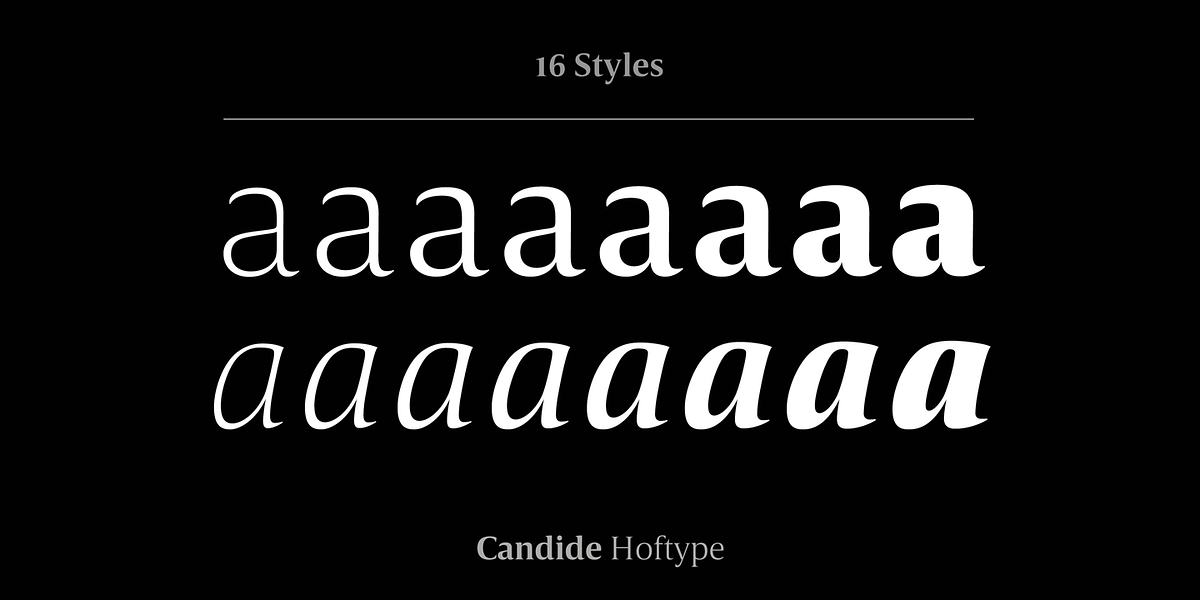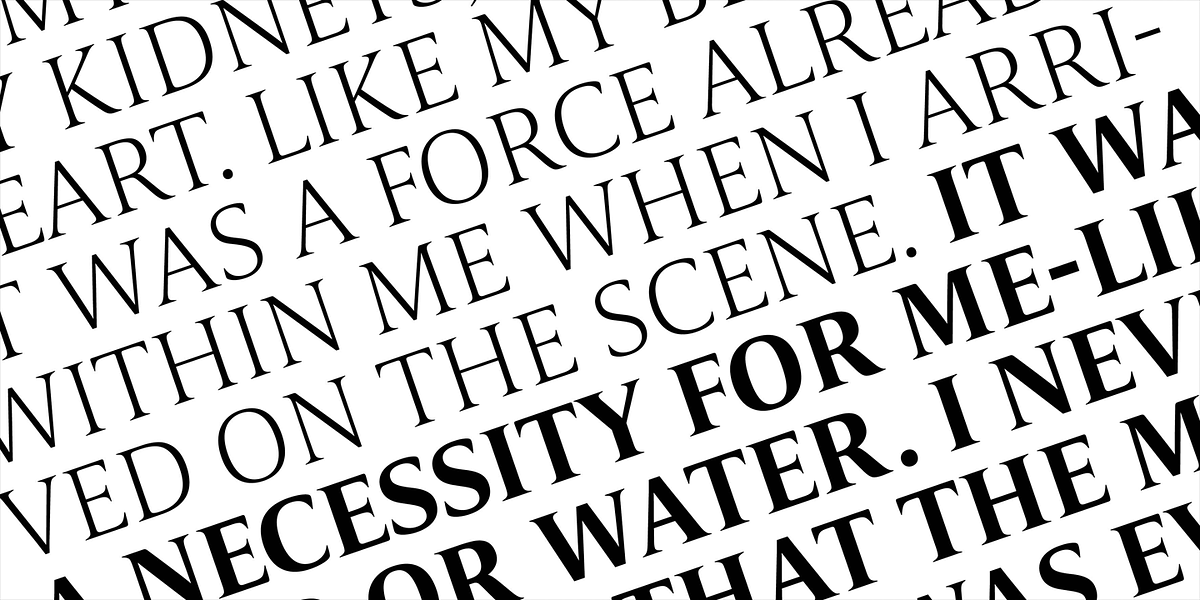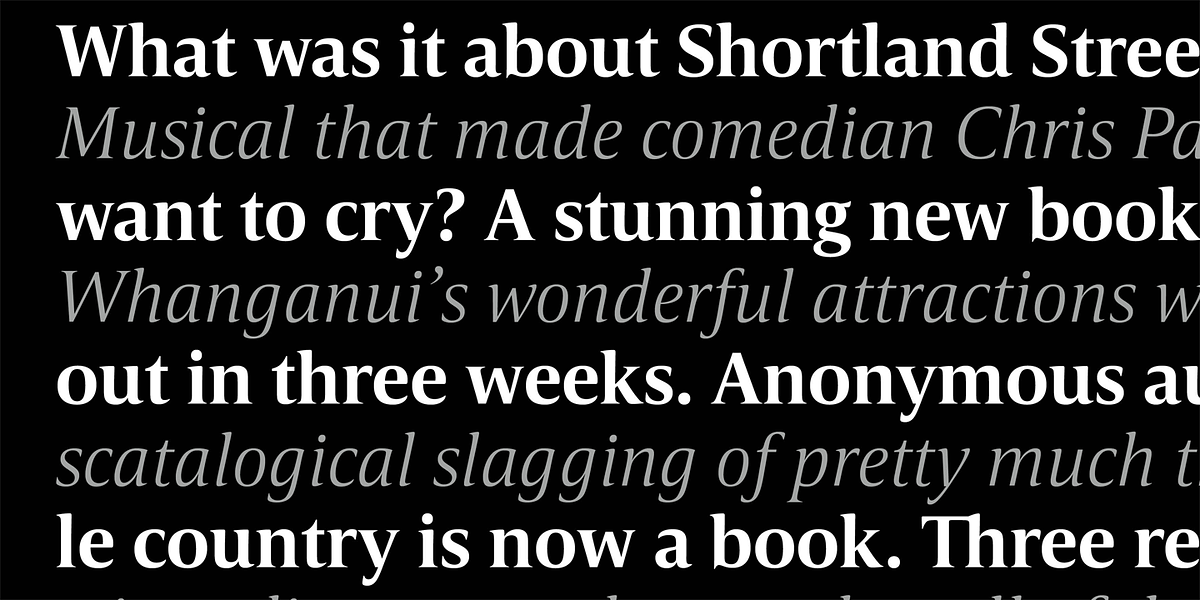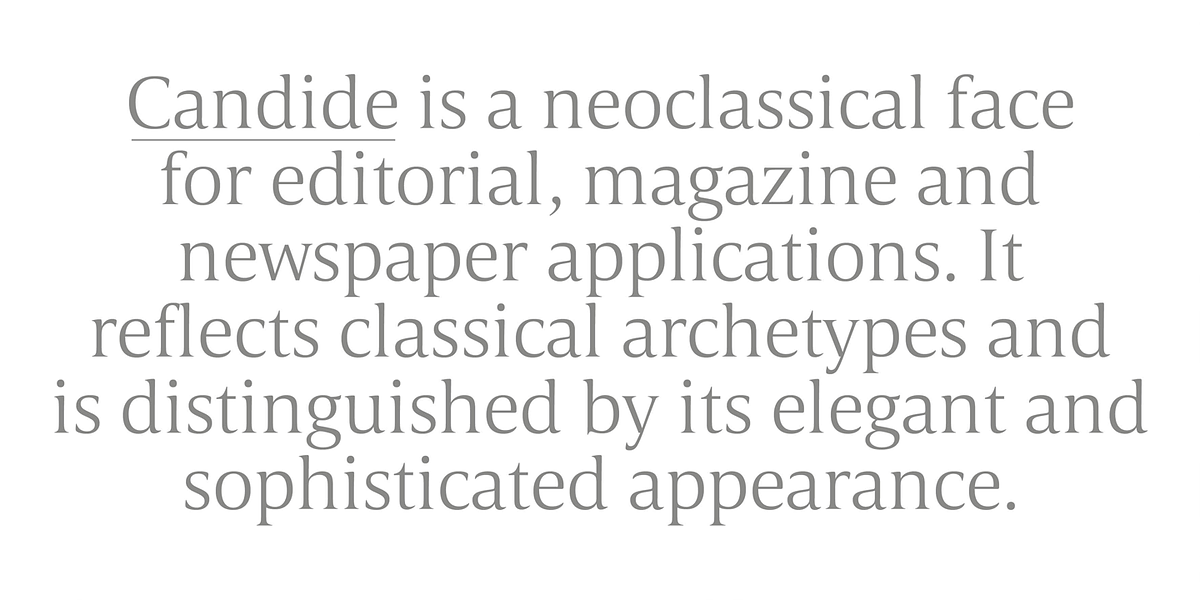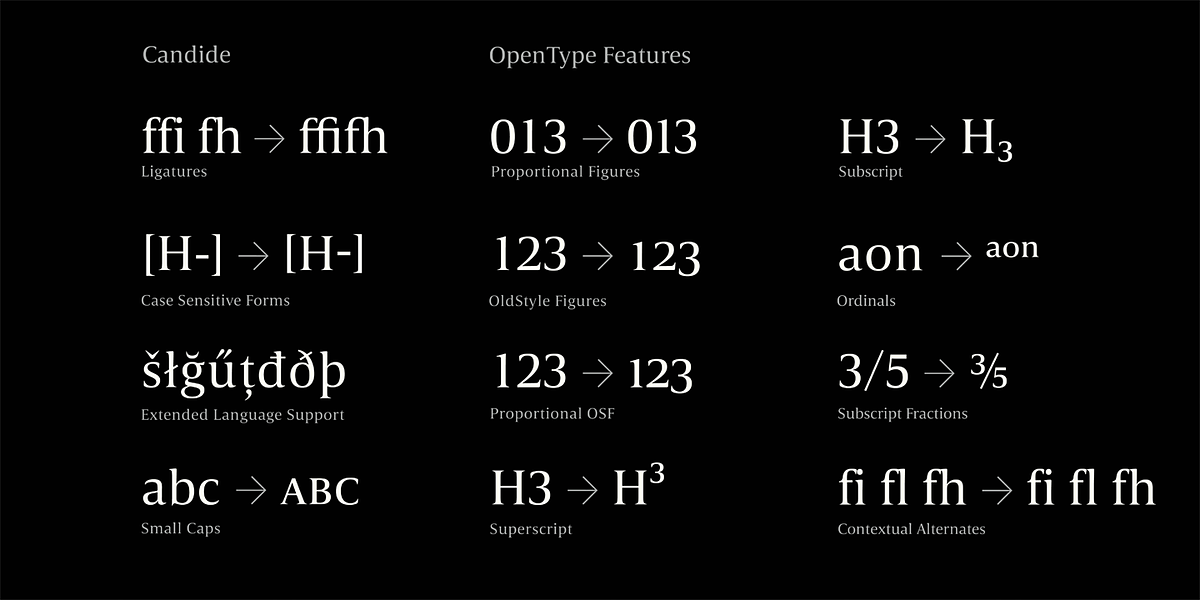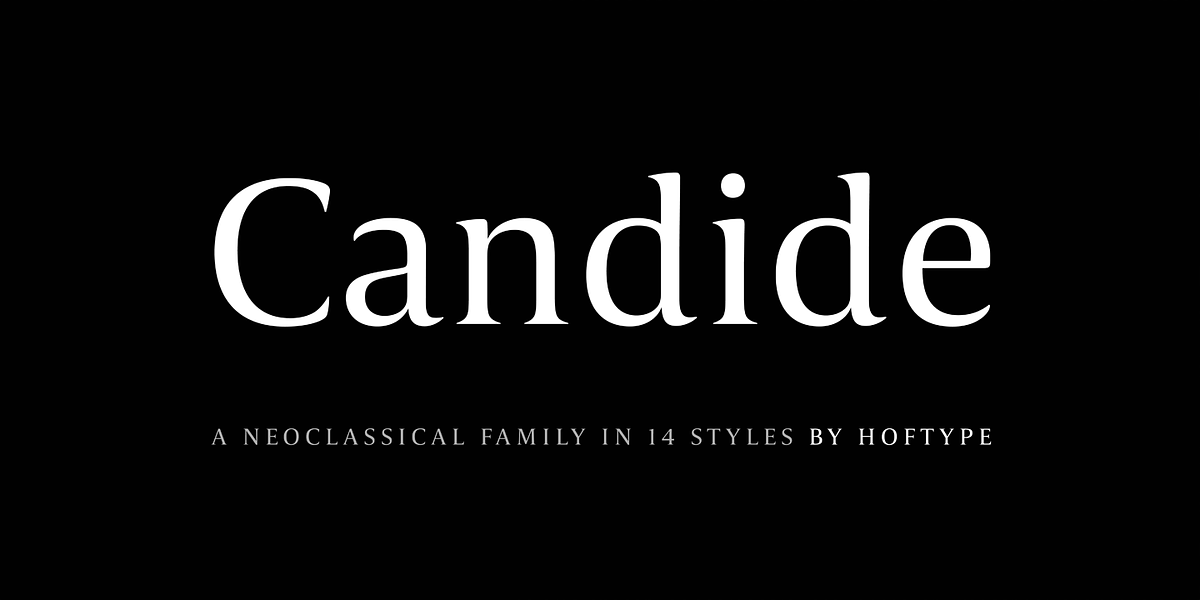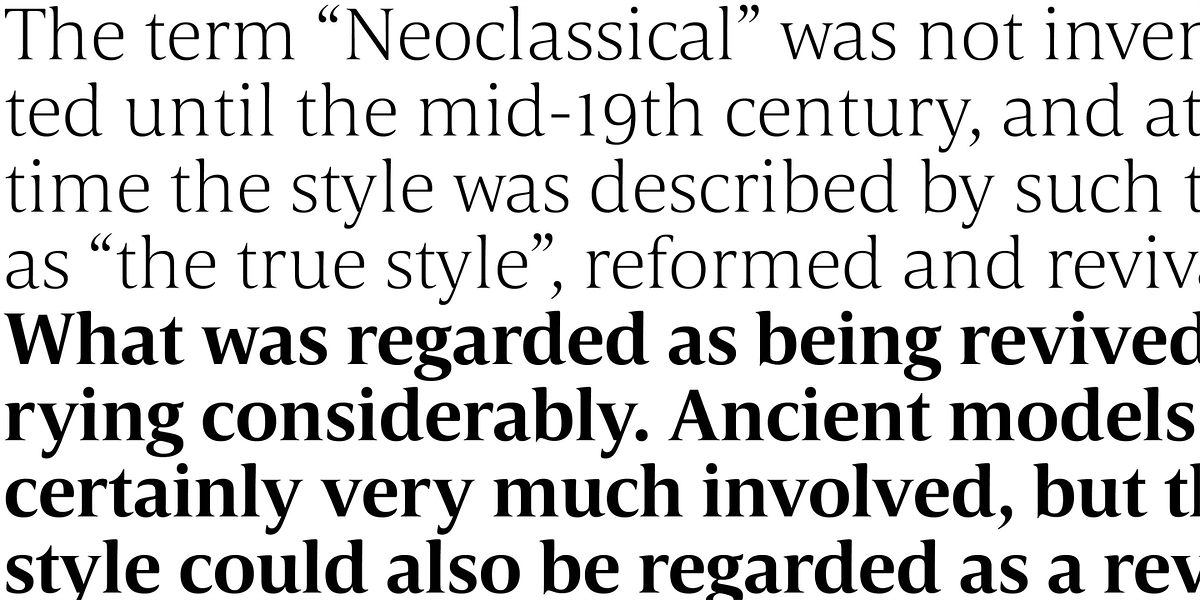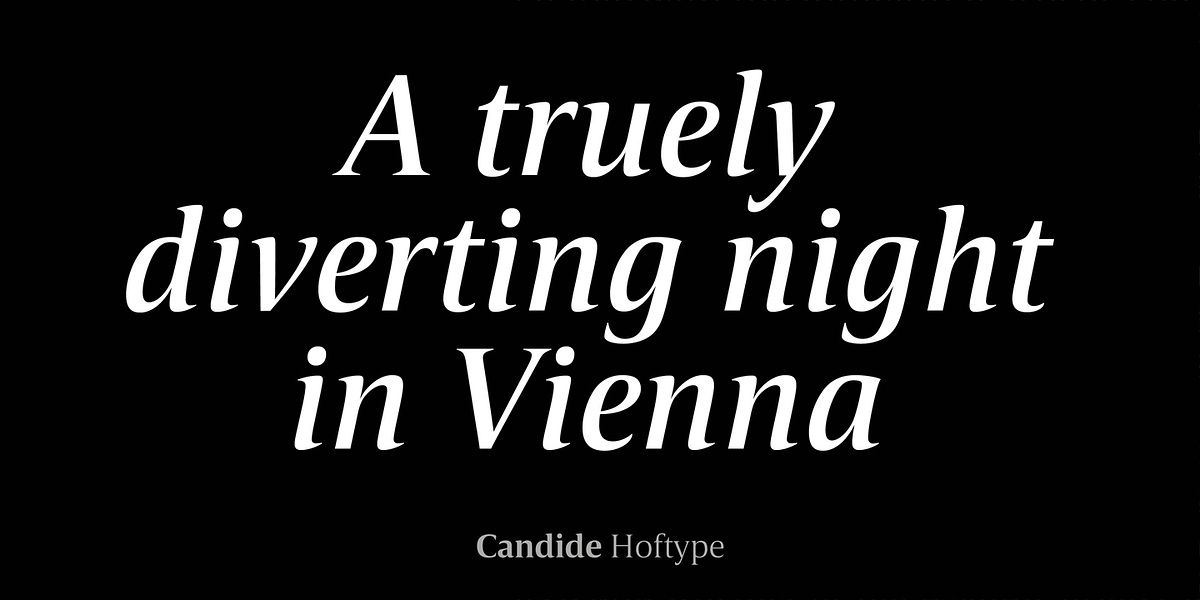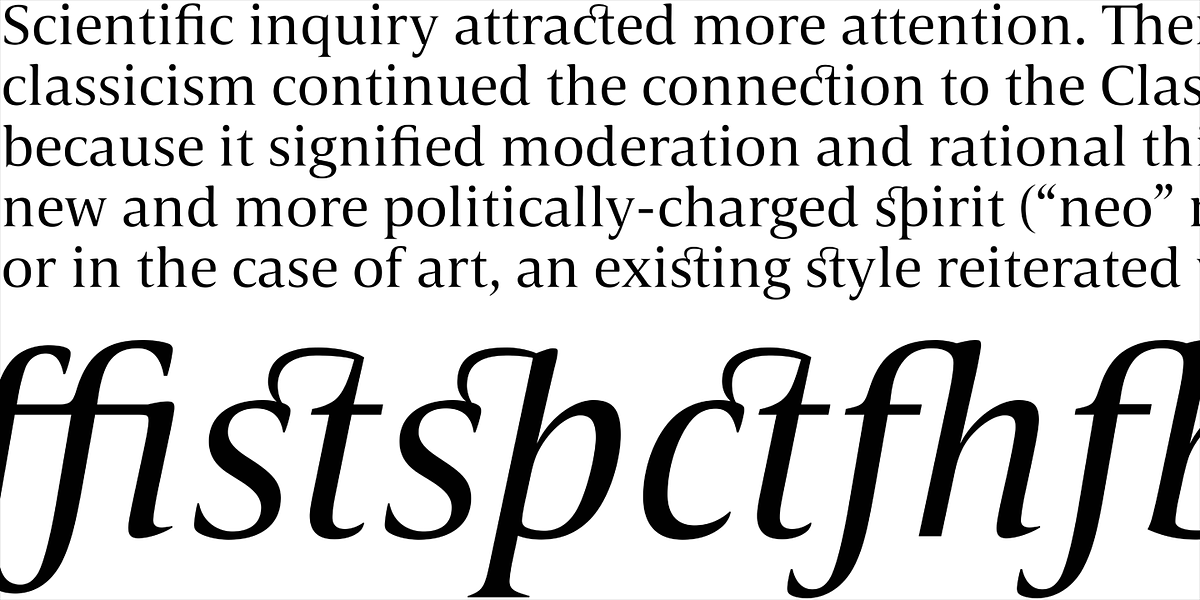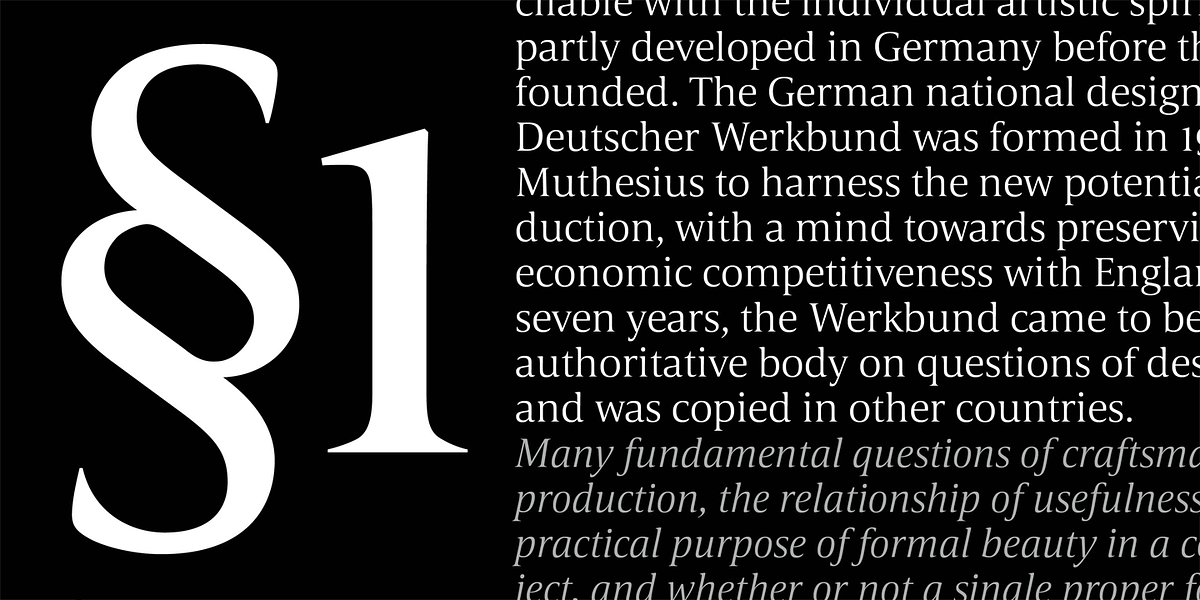
Candide
Candide is a neoclassical serif typeface designed for use in editorial and publishing contexts. It features an elegant and sophisticated appearance, drawing inspiration from classical typographic archetypes. The font family comes in 16 styles with a wide range of weights and includes extensive language support and OpenType features such as ligatures, figures, currency symbols, and alternative characters.